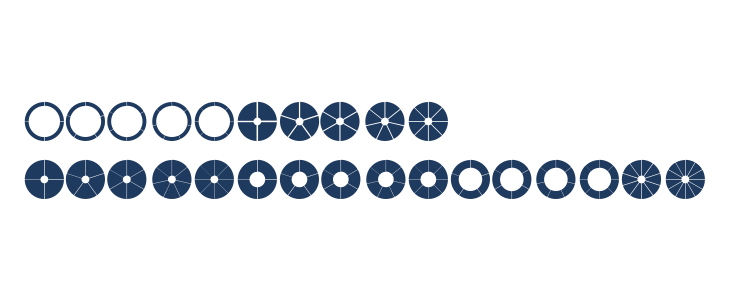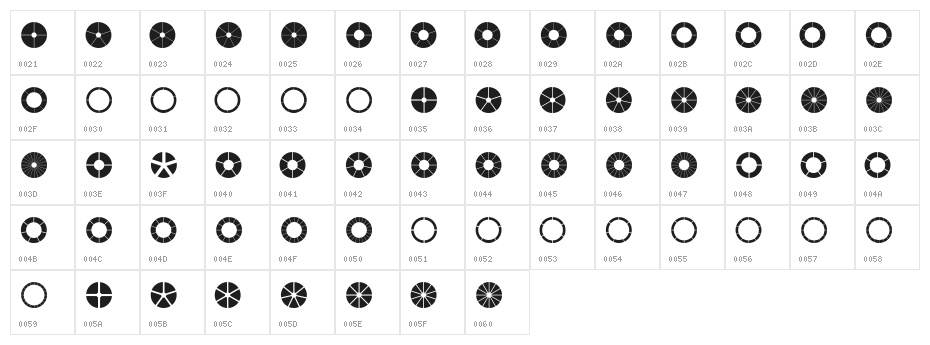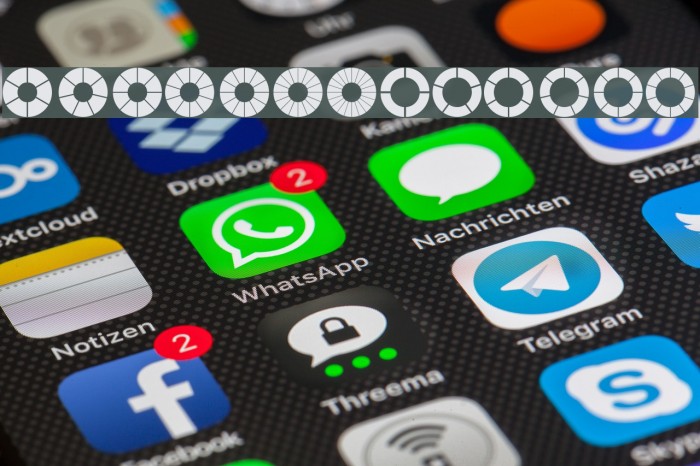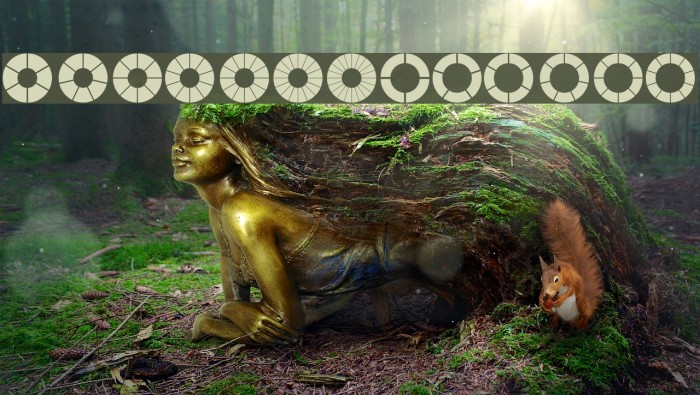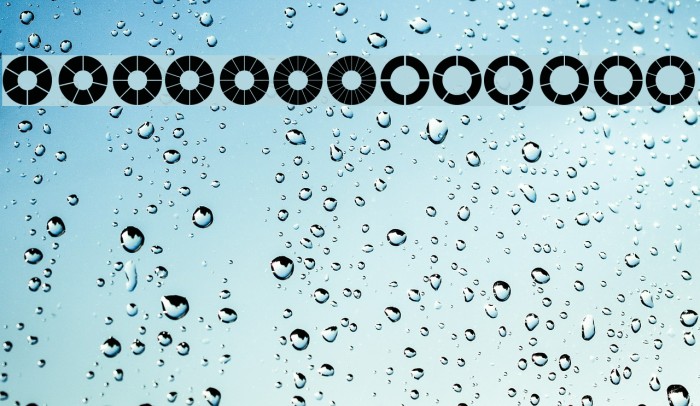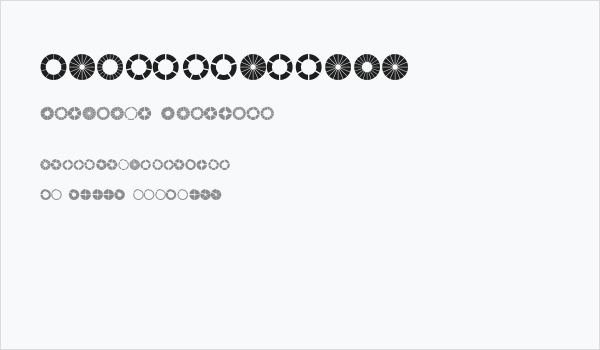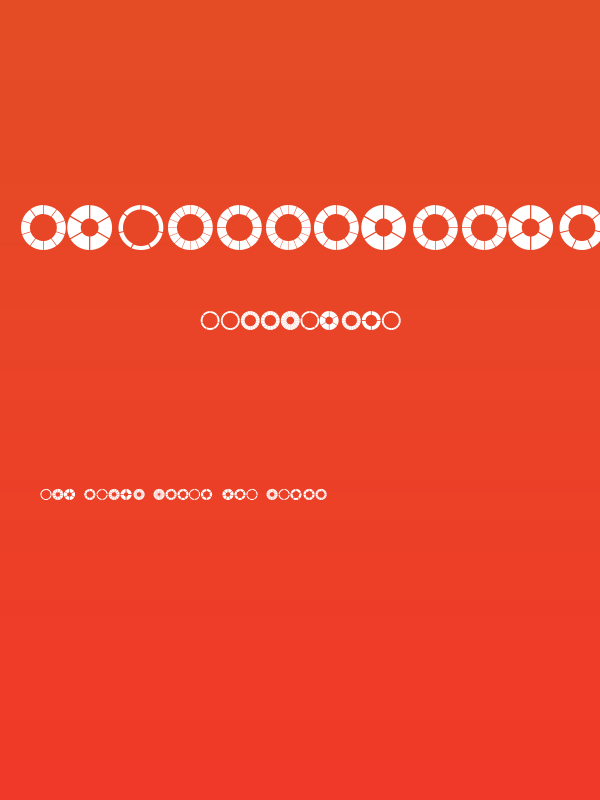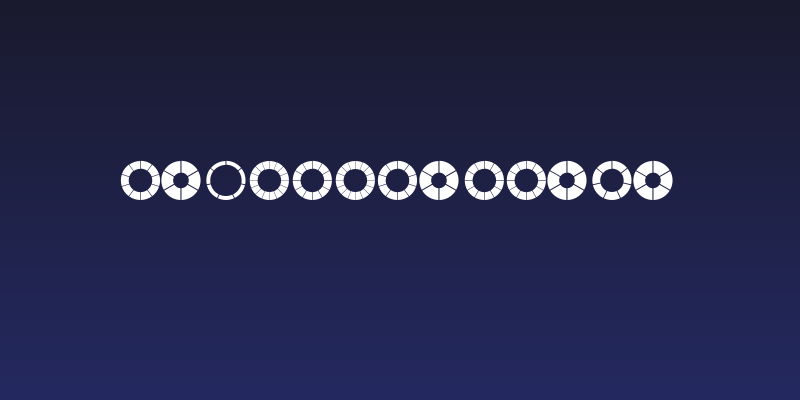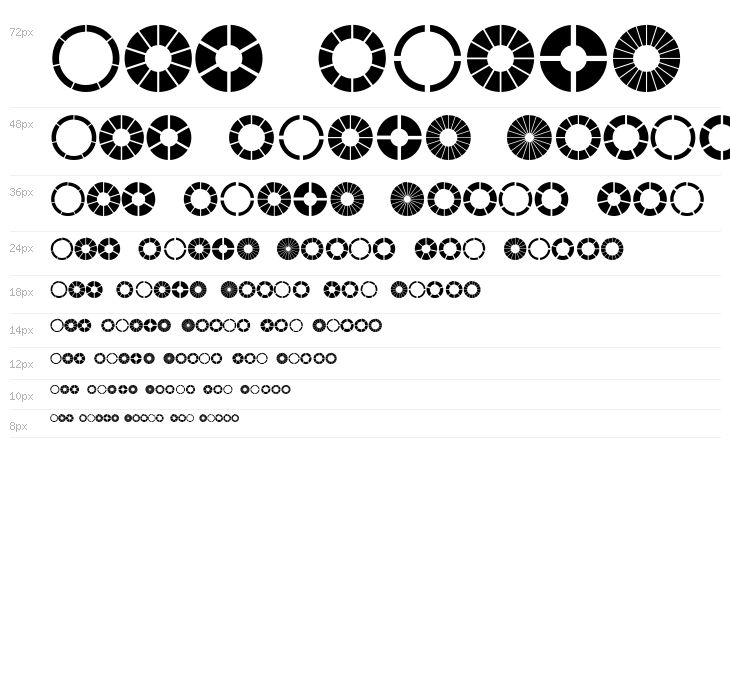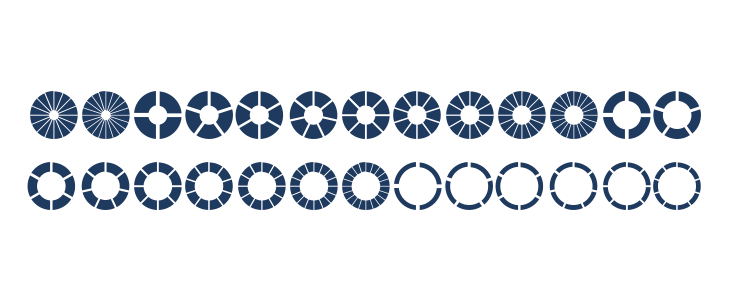
Matonomannaka Font
Matonomannaka Description
This design features a series of circular shapes with varying internal patterns, creating a visually striking and abstract appearance. Each character is represented by a circle divided into segments, with some filled and others left open, giving a sense of movement and rhythm. The uniformity of the circular forms provides a cohesive look, while the internal variations add interest and complexity. This design is highly decorative and would be suitable for projects that require a modern and artistic touch.
| Use Case | Logos, Decorative elements |
| Proposed Projects | Ideal for use in modern art installations, digital interfaces, or as a decorative element in graphic design projects. |